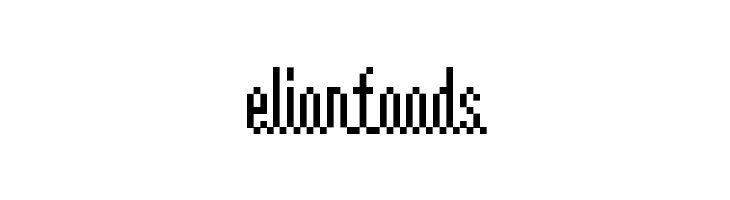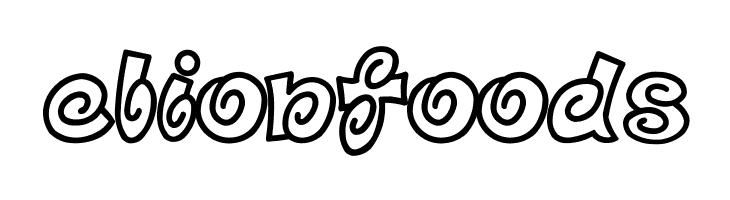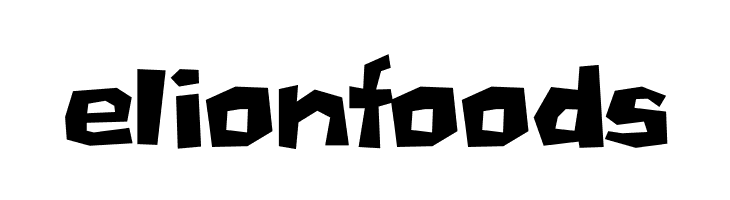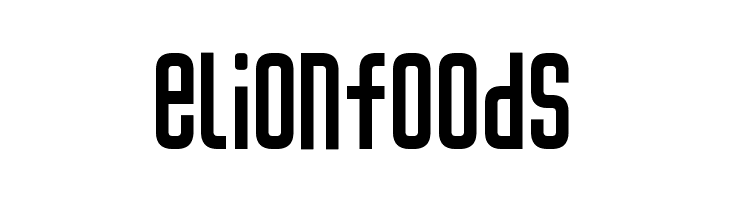
A pixelated, retro-style font with a digital, geometric appearance.
A bold, modern font with a geometric and futuristic style.
A bold, geometric font with a modern and industrial aesthetic.
A bold, dynamic font with a modern, slanted style.
A bold, playful font with spiral motifs and a whimsical style.
A playful, spiral-themed outlined font with bold, whimsical characters.
A bold, angular font with a rugged, stone-like appearance.
A bold, playful font with an urban, hand-drawn style.
Bold, angular font with a modern, urban style.
A bold, geometric font with rounded edges and a strong presence.